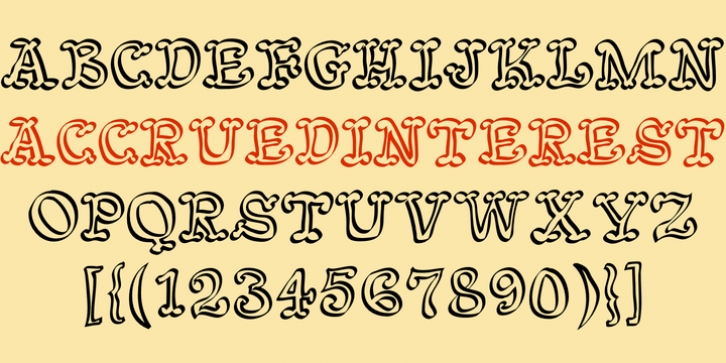
AccruedInterest is font with hollow letters, the outlines of which were roughly drawn with a calligraphic pen. The serifs are large and round. There is no separate lower case nor is there a variant of the face that is not hollow or outlined.